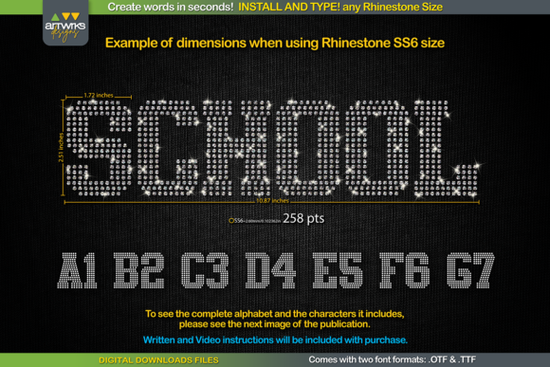
Designers, crafters, and small business owners looking for a quick way to add rhinestones to their projects will find the {title} incredibly useful. This TTF RHINESTONE Template font is perfect for creating custom designs on t-shirts, heat transfer vinyl, and more. Once installed, you can type any word and have it automatically filled with rhinestones or arranged for heat transfer vinyl. It’s an easy solution for anyone who wants to personalize their creations without spending hours on design work.
How to Use the Rhinestone Template Font
- SS6: 189 pt
- SS10: 241 pt
- SS16: 295 pt
- SS20: 388 pt
Adjust the font size accordingly, and you’ll have a perfectly sized template ready for cutting. This makes it easy to create consistent and professional-looking designs every time. If you’re using Cricut Design Space, there are some tips to help you adjust the font size properly for different rhinestone sizes.
What You Need to Know Before Using the Font
This font works best with the characters shown in the product images. It’s important to follow the instructions carefully to ensure the best results. Some users have noticed that Cricut Design Space may not always maintain the recommended size for different stone sizes, but there are ways to work around this issue. By adjusting the font size manually, you can still achieve the desired outcome.
The {title} is ideal for anyone who wants to create custom rhinestone designs without needing advanced design skills. It’s especially useful for print-on-demand sellers and small businesses looking to offer unique, personalized products. With just a few steps, you can turn any text into a stunning rhinestone design that stands out.
Why Choose This Rhinestone Font?
Another benefit is the ability to customize your designs quickly. Instead of drawing each rhinestone individually, the font does the work for you. This saves time and ensures that each letter is filled or arranged correctly. Whether you’re making a simple logo or a complex design, this font simplifies the process and helps you achieve professional results.
Whether you’re a hobbyist or a professional designer, the {title} is a valuable tool that can enhance your creative projects. Its ease of use, compatibility, and flexibility make it a must-have for anyone working with rhinestones or heat transfer vinyl.